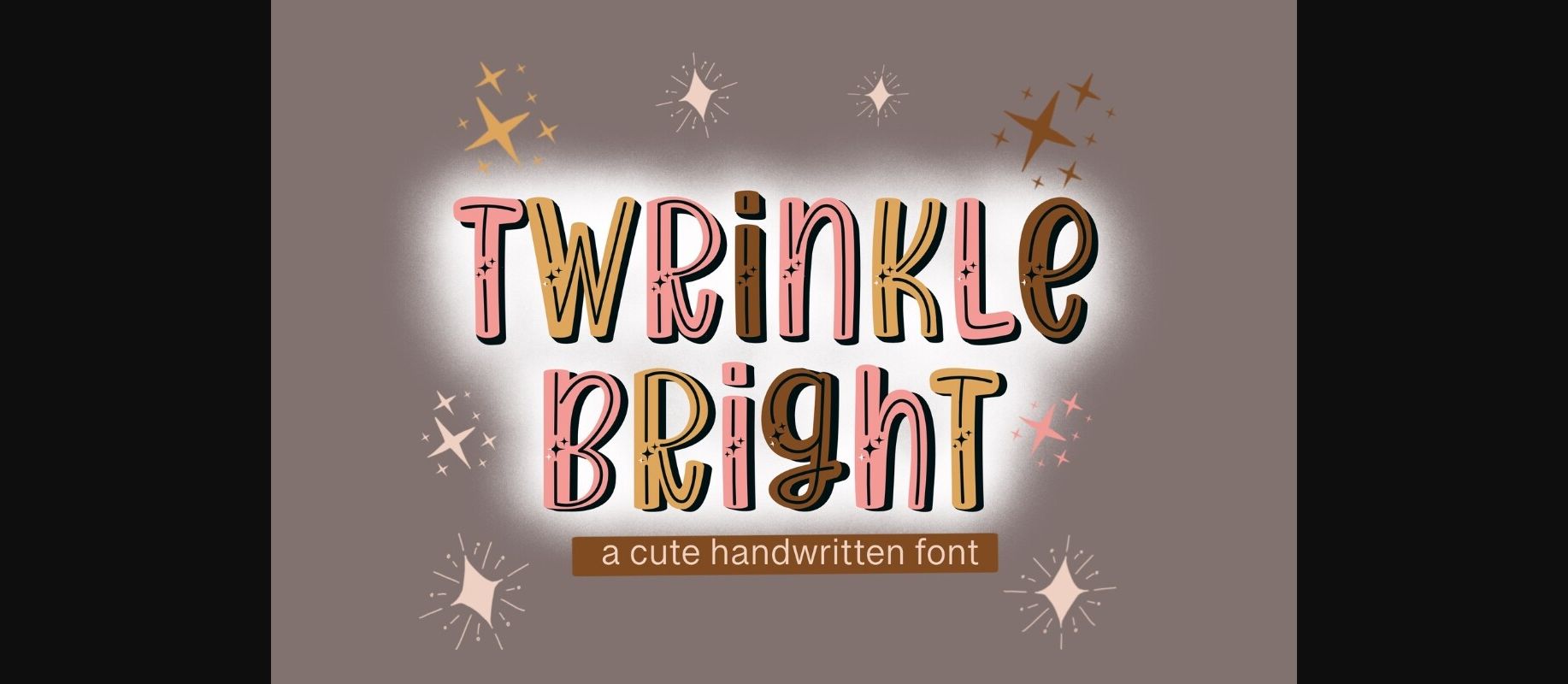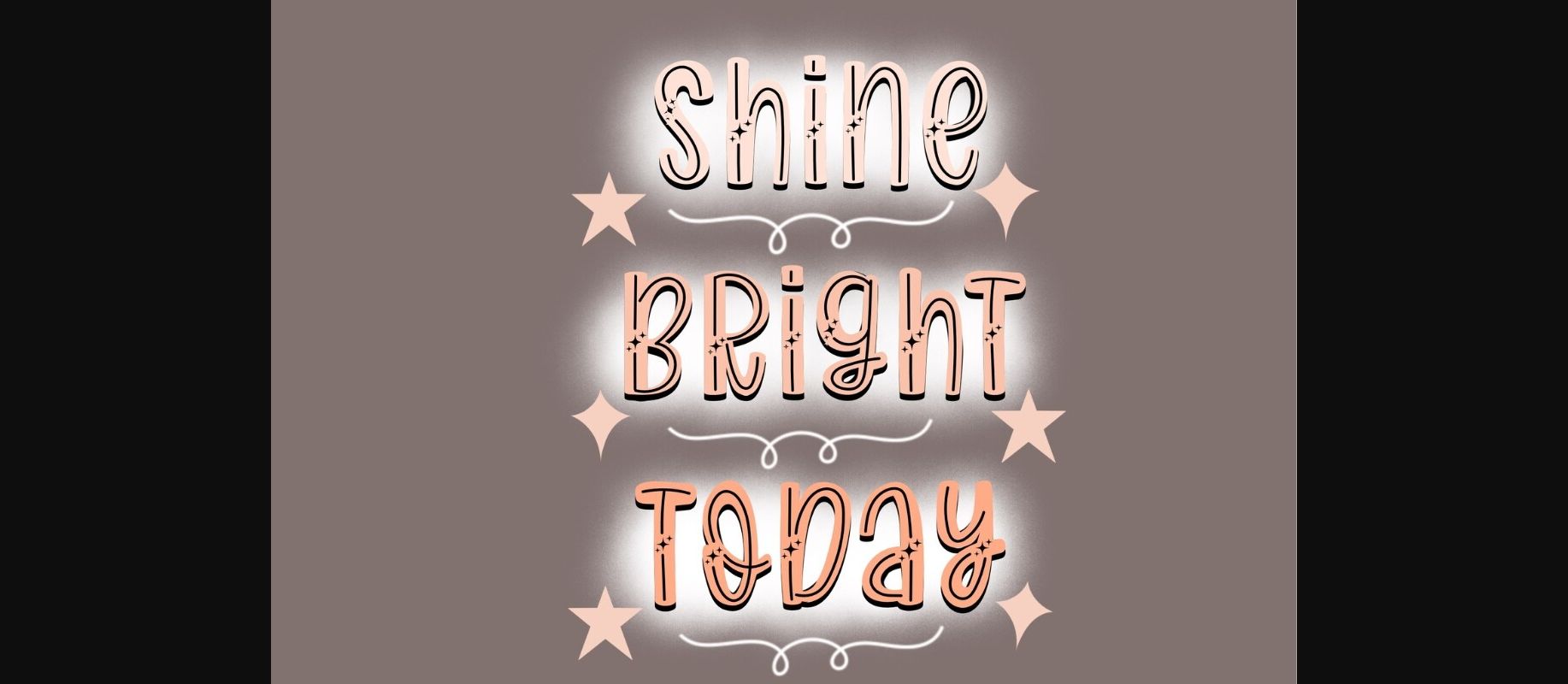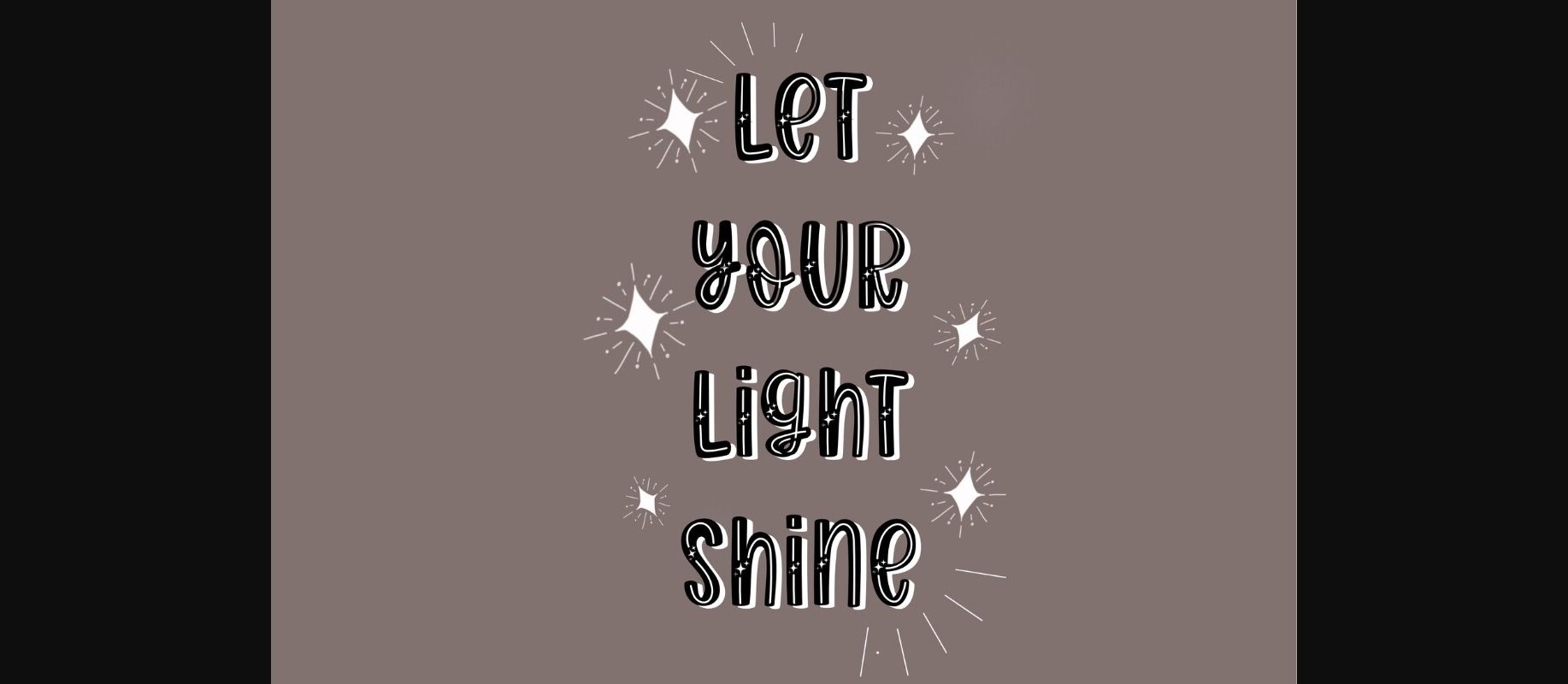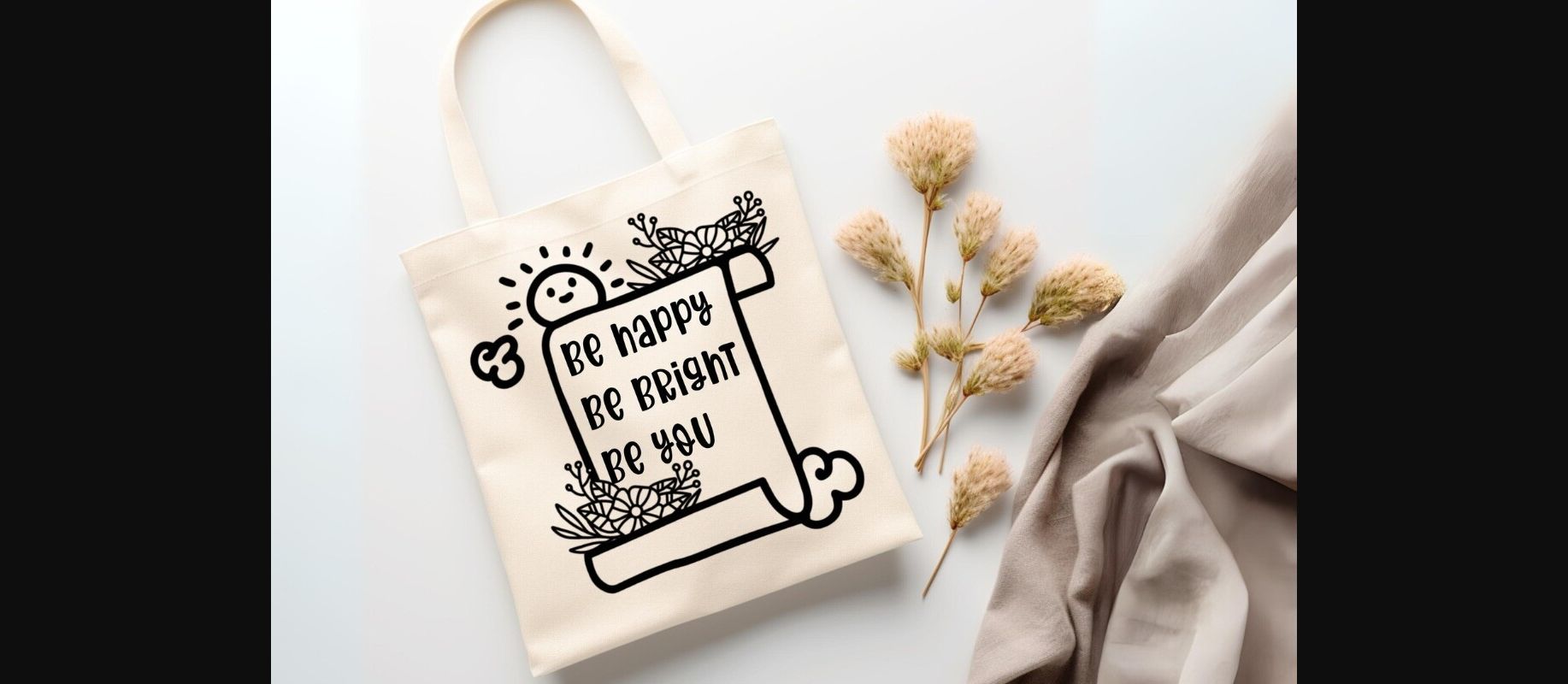
About Twrinkle Bright Font
Twrinkle Bright Font is a cute decorative font that uses block-bold letters adorned with stars shining and inlined-center alphabet. Inspired by a winter night vibe, its casual charm will help you create lovely, shining designs. It is perfect for creating a wide variety of designs, such as banners, social media posts, cards, content, mugs, t-shirt designs, stationery, bags, hats, pillows, stickers, and much more.Masterfully designed to become a true favorite, this font has the potential to bring each of your creative ideas to the highest level!